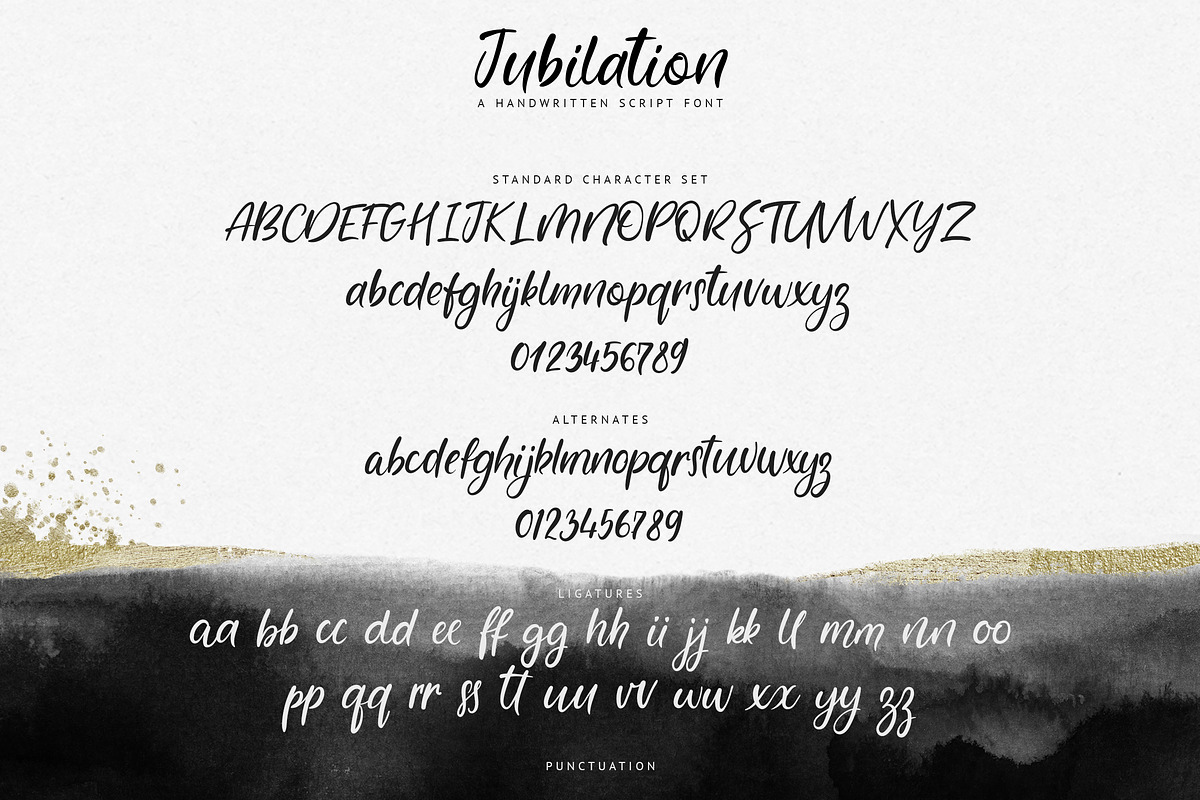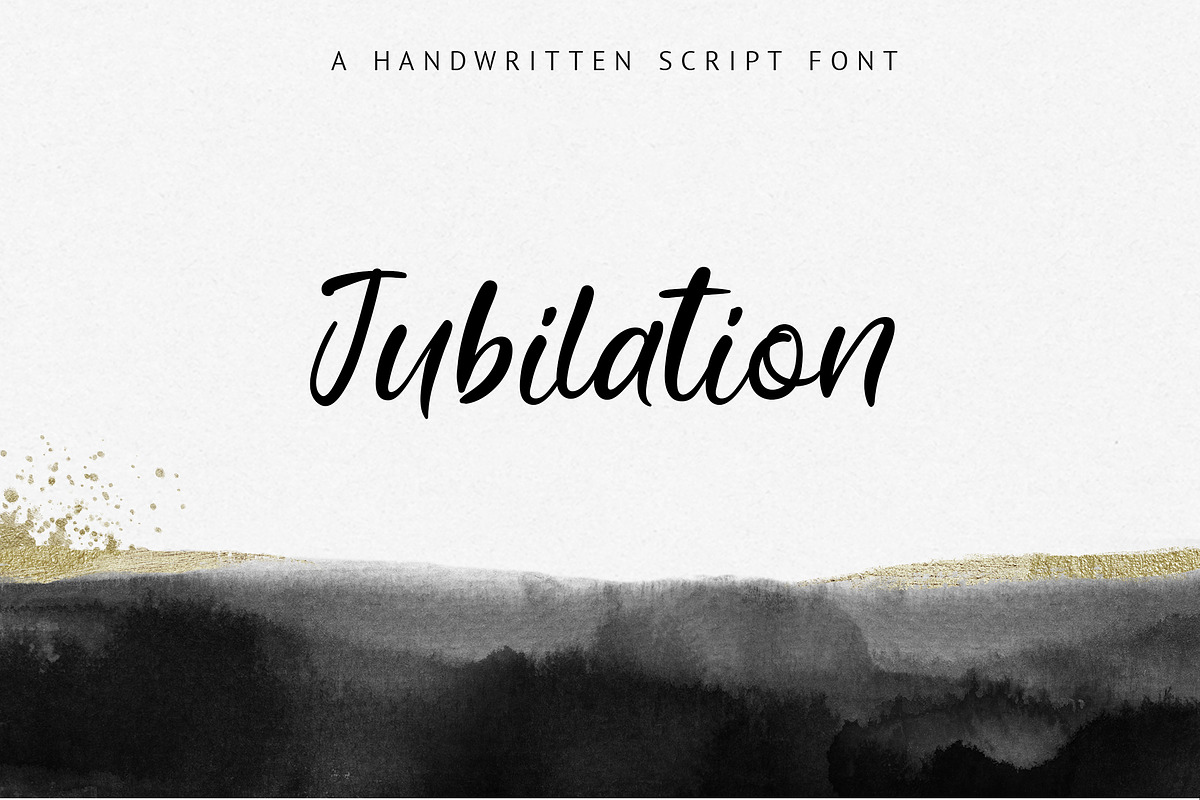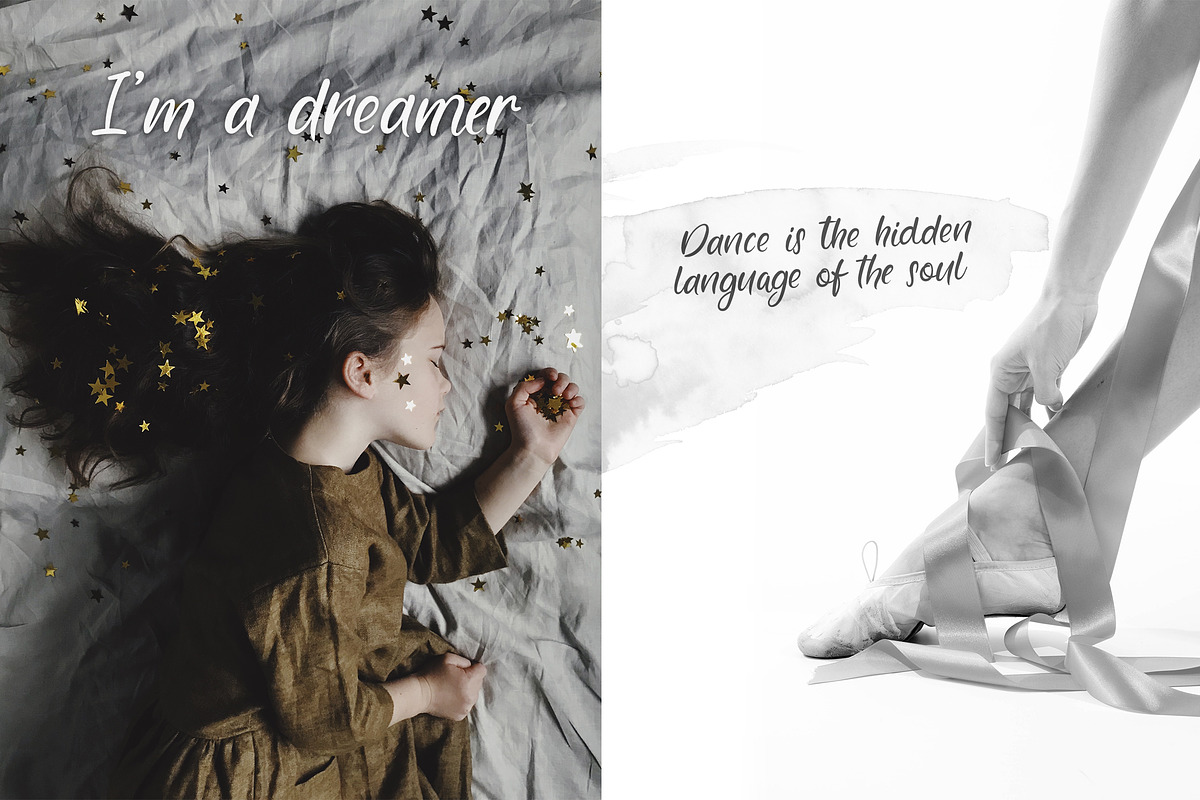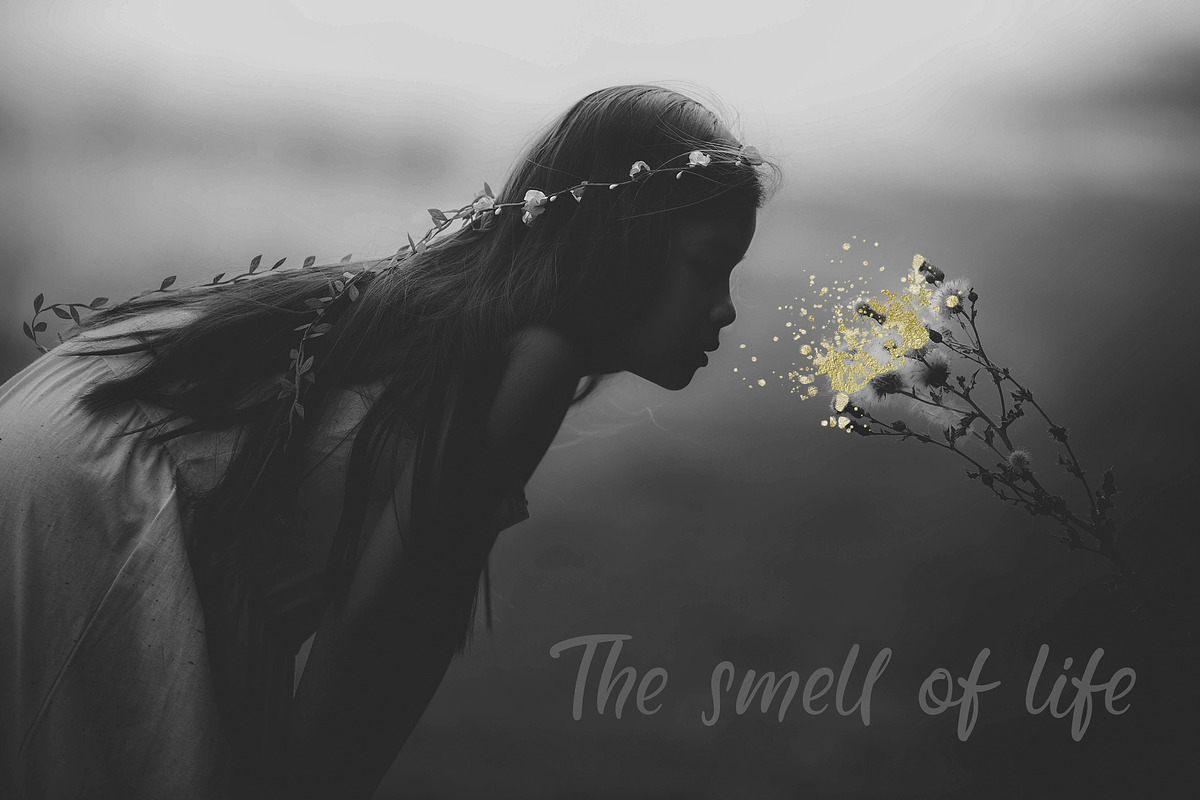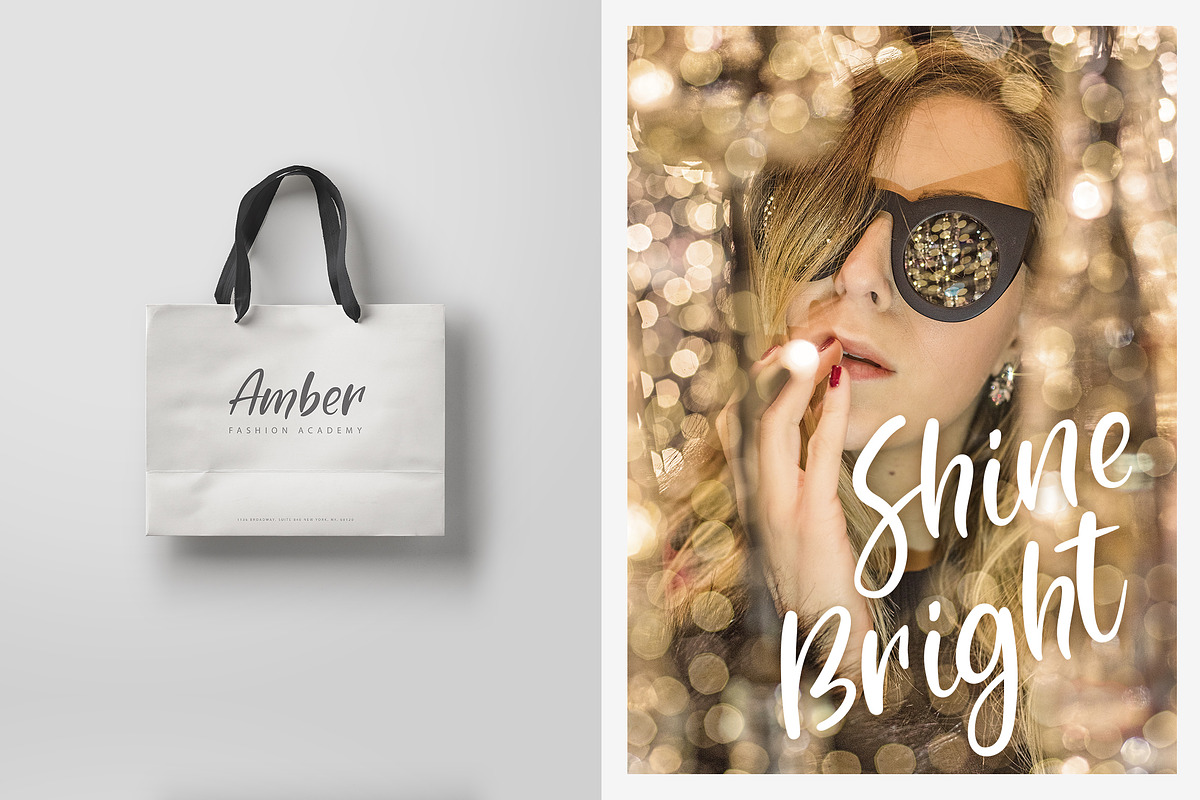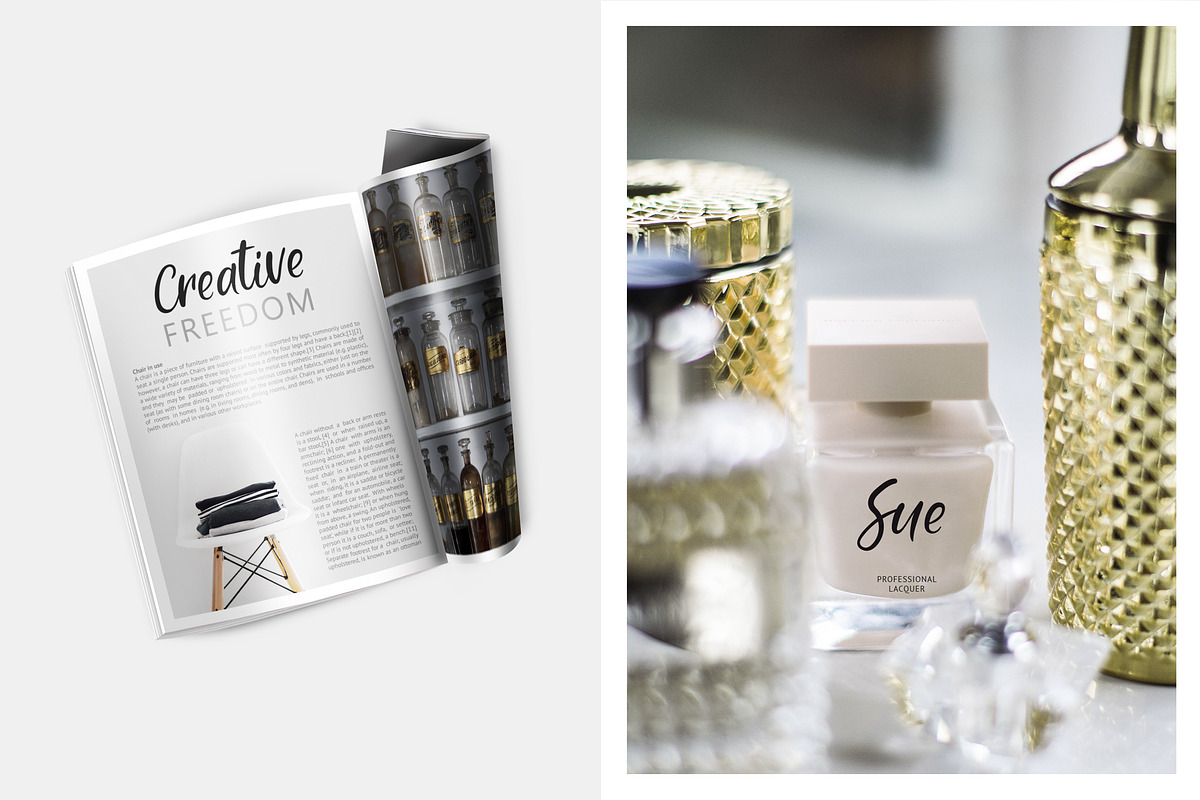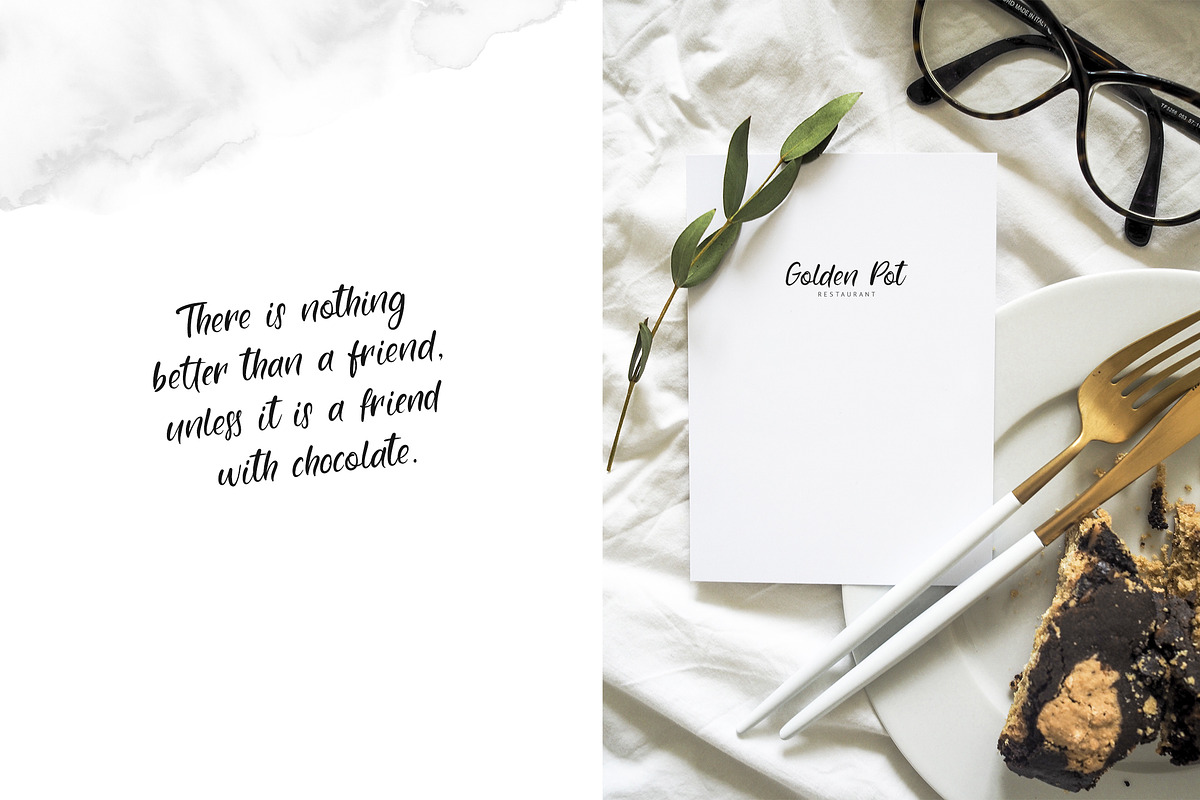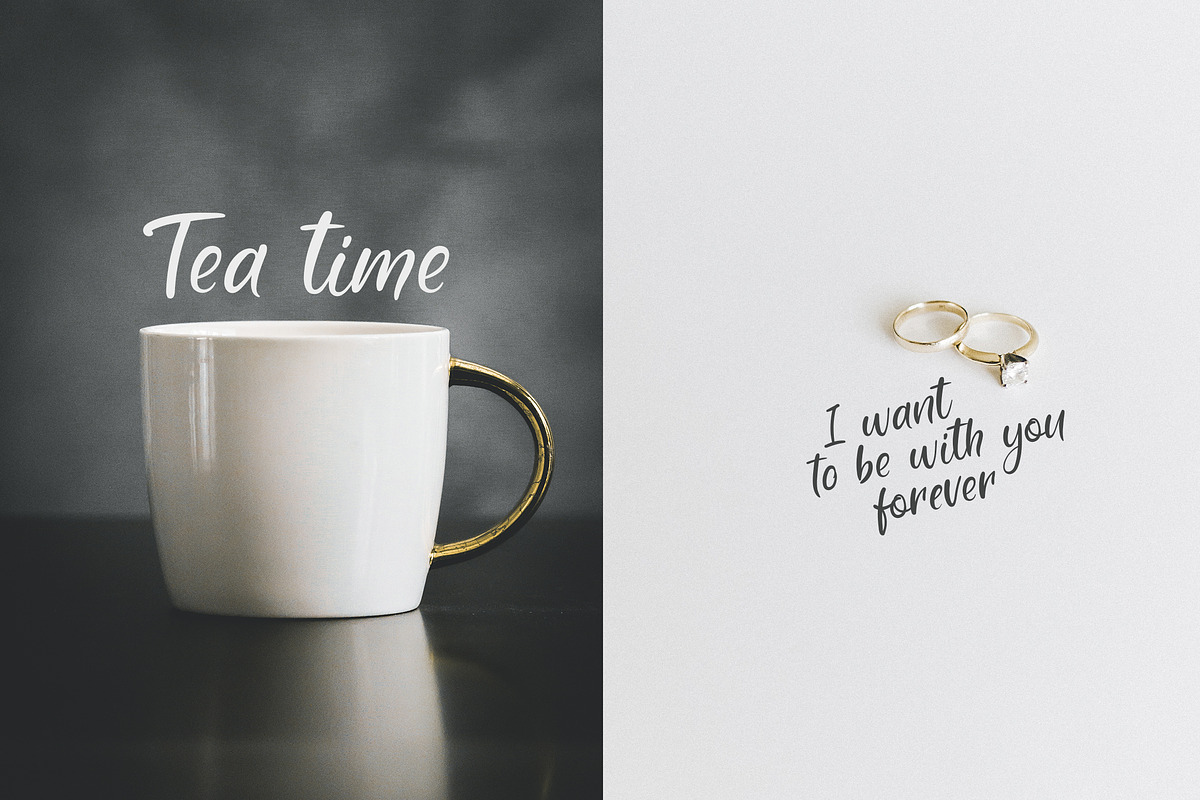
Jubilation. Handwritten Font
Introducing the exquisite font Jubilation!
Jubilation is a mesmerizing handwritten font that will bring a touch of elegance and authenticity to your designs. With its ligatures and extensive set of lowercase and number alternates, this font adds a realistic and personalized feel to your text.
Embrace the versatility of Jubilation across a wide range of design applications. From branding and logos to wedding invitations and cards, this font effortlessly captures attention and leaves a lasting impression. Its graceful strokes and charming curves make it perfect for creating captivating headings, distinctive signatures, eye-catching product packaging, inspiring quotes, delightful greeting cards, memorable logos, captivating overlays, engaging Instagram posts, and so much more.
Let Jubilation be your creative companion as you craft stunning visuals that evoke joy, celebration, and a sense of refined beauty. Embrace the artistic possibilities and experience the delight of using this exceptional font in your designs.
- With its ligatures and extensive set of lowercase and number alternates, this font adds a realistic and personalized feel to your text.